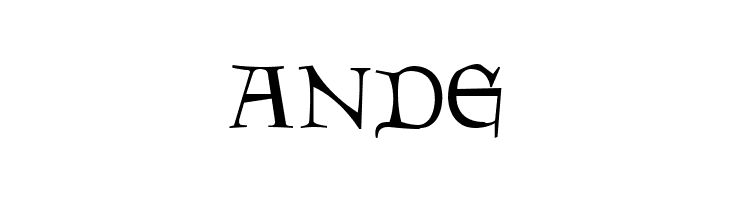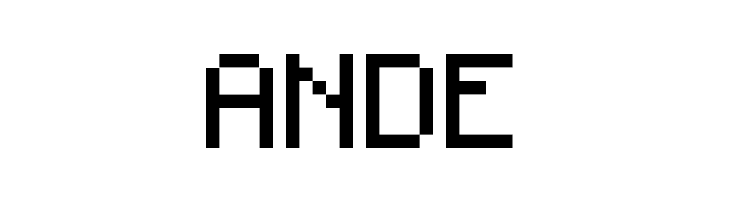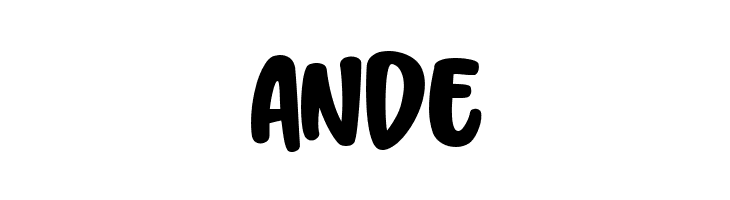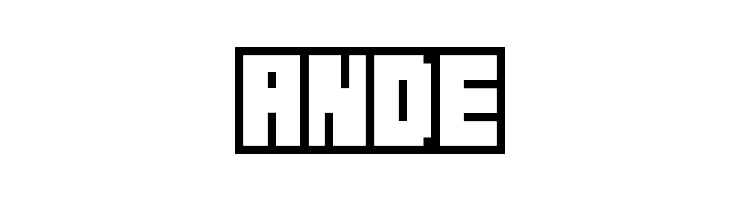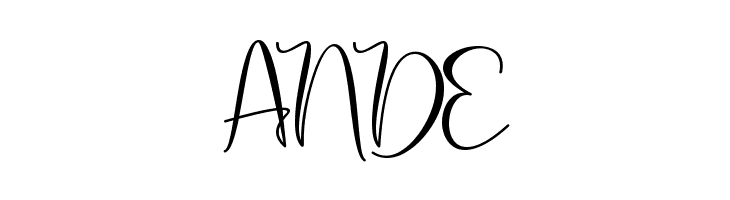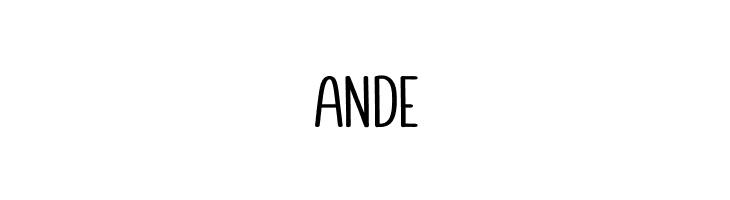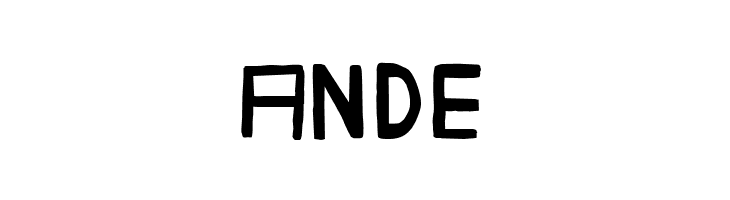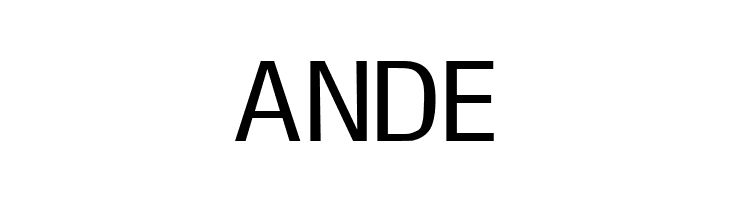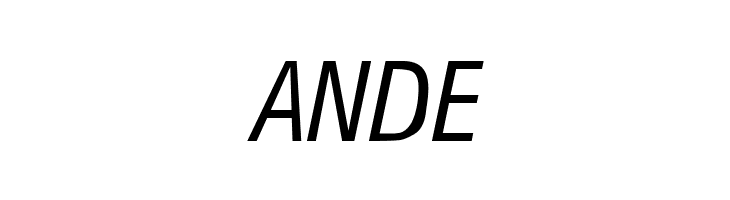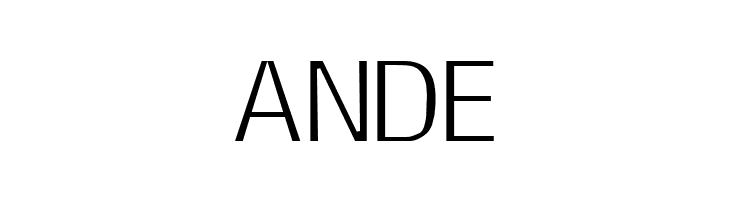
( Endie )
A bold, handwritten font with a playful and informal style.
A bold, modern sans-serif font with geometric lines and strong presence.
A decorative, italic font with a multi-line, three-dimensional effect.
A decorative font with multiple parallel lines forming each character, offering a bold and intricate appearance.
A playful, handwritten font with a smooth, flowing style.
A whimsical and flowing script font with elegant, fluid letterforms.
A distinctive serif font with sharp angles and a blend of traditional and modern styles.
A bold, pixelated font with a rugged, digital aesthetic.
A pixelated, blocky font with a retro digital aesthetic.
Bold, angular Gothic-inspired font with dramatic strokes.
( modern and geometric )
A bold, geometric font with a modern, digital aesthetic.
A decorative font with characters as castle silhouettes.
A decorative font featuring fantasy-themed architectural silhouettes.
Architectural silhouette display font with each glyph as a unique building.
Playful handwritten font with rounded edges.
A pixelated, retro-style font with a digital, arcade-like appearance.
A bold, geometric font with a modern and impactful design.
A bold Gothic font with sharp, angular lines and intricate detailing.
A bold, shadowed font with a three-dimensional, decorative style.
A bold, playful handwritten font with rounded strokes and smooth curves.
A tactile writing system using raised dots for visually impaired readers.